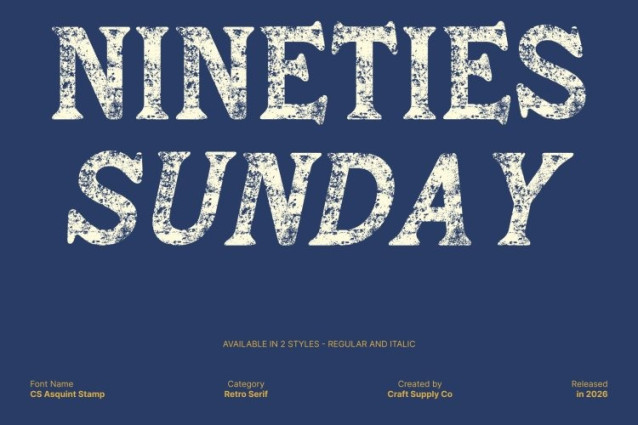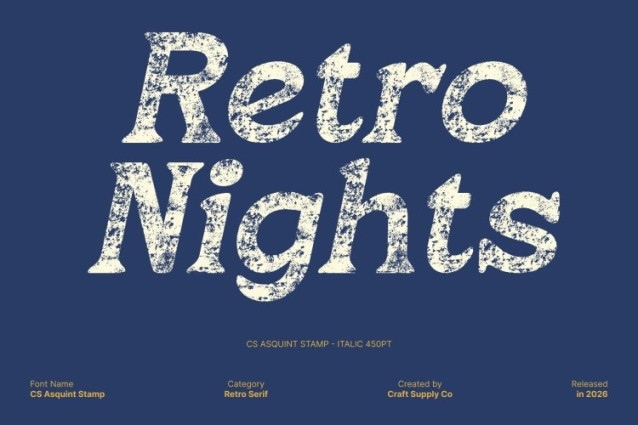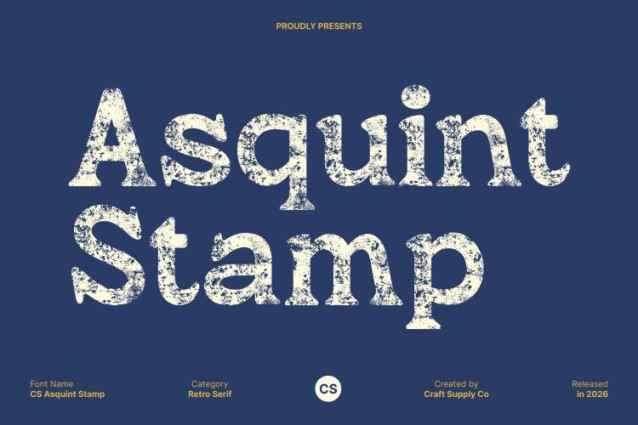
CS Asquint Stamp Font
CS Asquint Stamp Font This is a bold serif font that blends classic serif elegance with a retro-cute aesthetic. Its thick strokes and sturdy structure create strong visibility and confident weight, allowing each letterform to stand out clearly. The traditional serif foundation delivers timeless sophistication, while the stamped texture introduces a subtle worn effect that enhances its vintage charm.
Playful and Nostalgic Design Elements
Infused with cheerful, nostalgic details, this font radiates warmth and friendliness. Soft curves and whimsical accents give the font a cute and approachable personality, while the stamp effect adds an artistic, handcrafted feel reminiscent of old print posters, retro packaging, and classic signage.
Ideal for Retro, Cute, and Captivating Projects
This font is perfect for projects that aim to balance charm and clarity. It works beautifully for event posters, retro branding, product packaging, café menus, children-friendly visuals, and creative merchandise. The bold serif forms ensure readability, while the textured finish adds visual interest and personality.
Blending Classic Elegance with Delightful Vintage Warmth
With its strong serif construction, playful retro influence, and stamped texture, this font offers a harmonious mix of elegance and fun. It delivers a nostalgic yet lively typographic voice ideal for designs that want to feel classic, cute, and memorable.